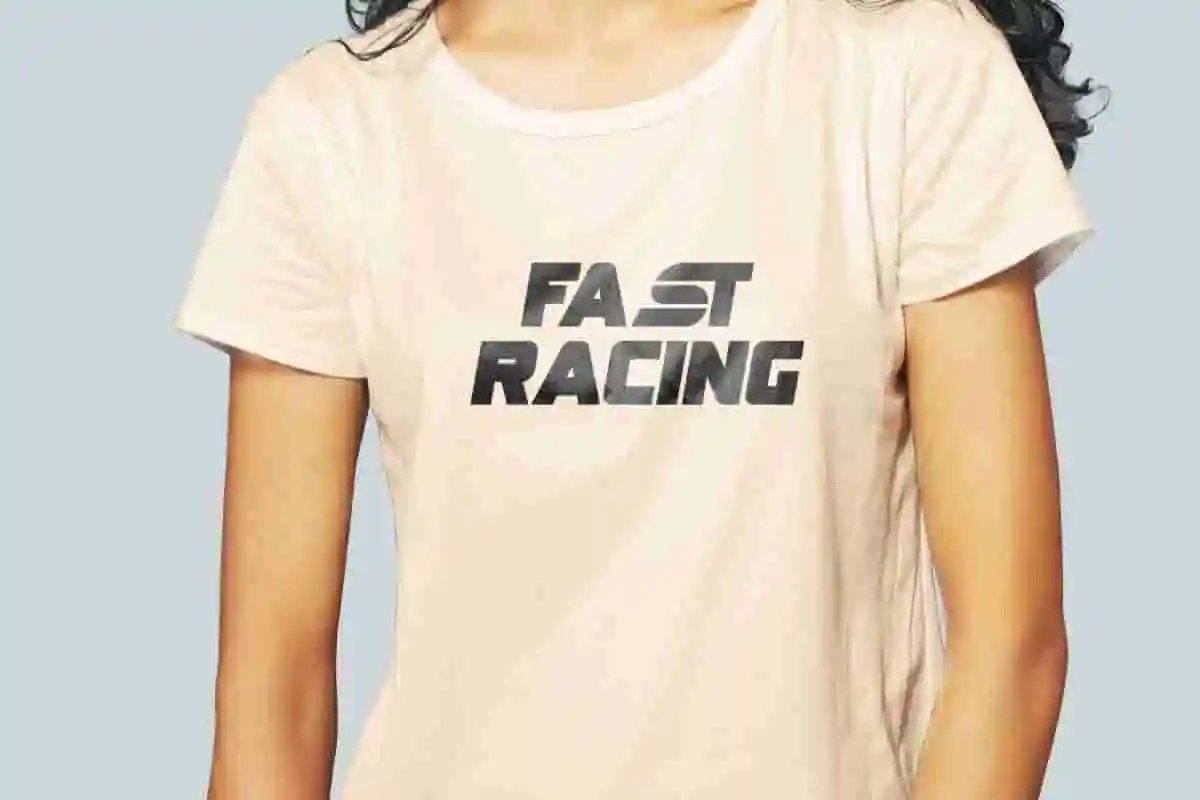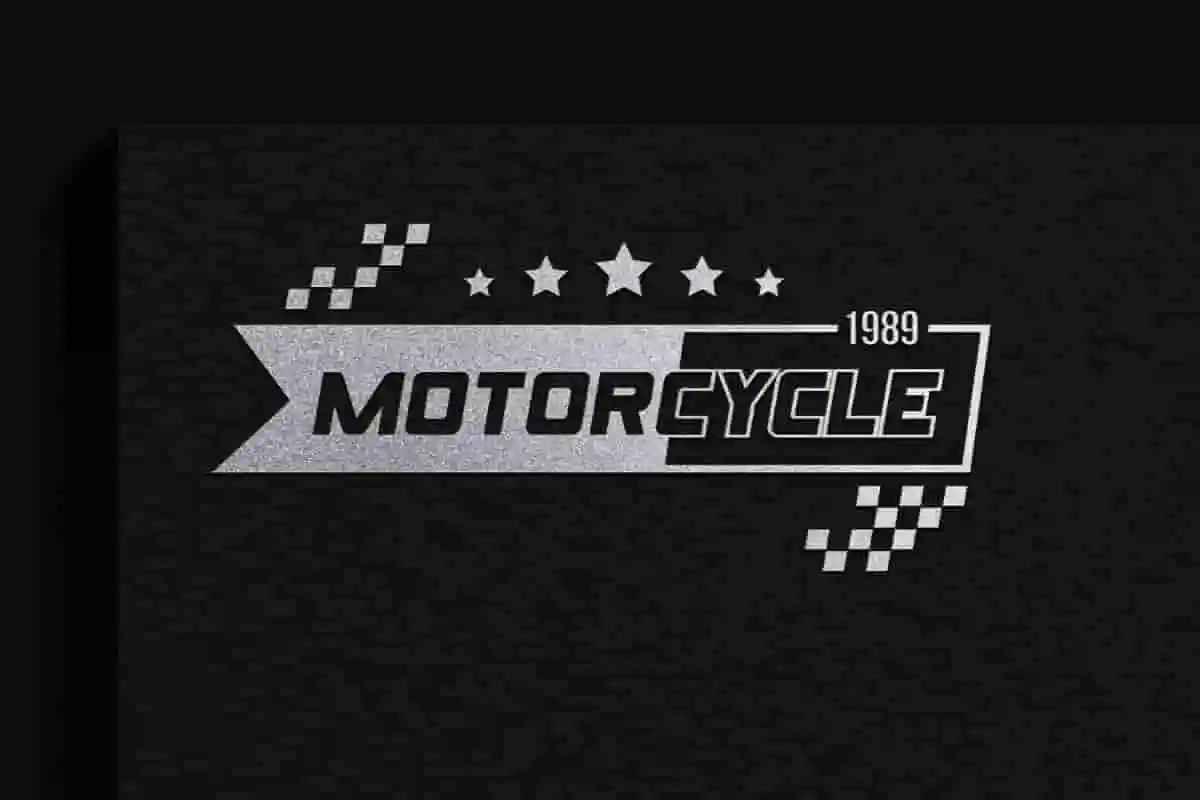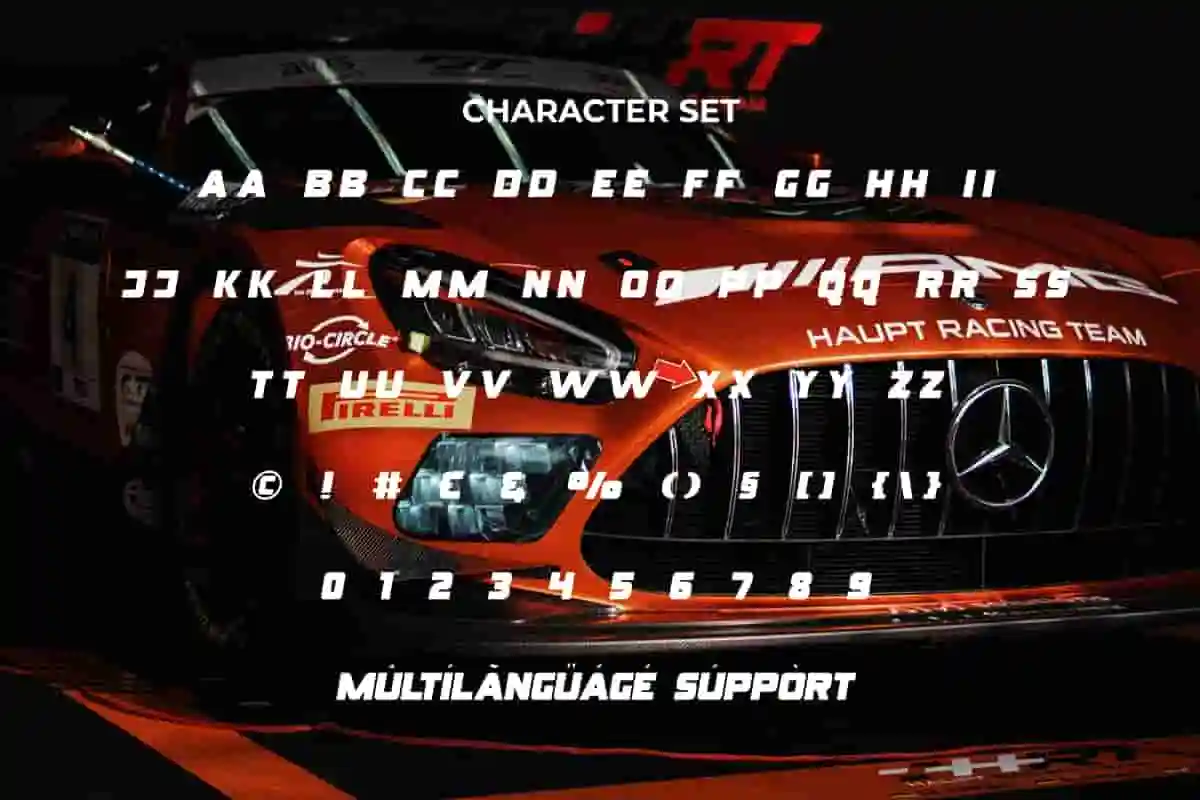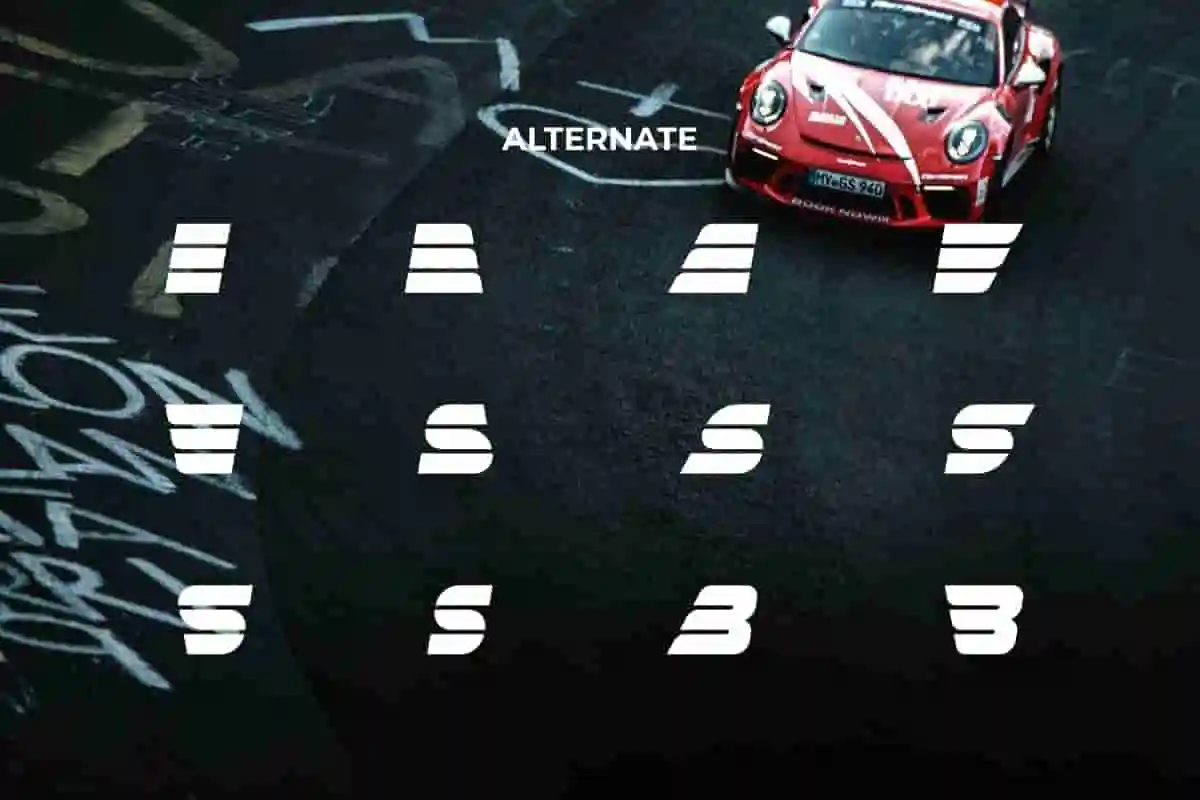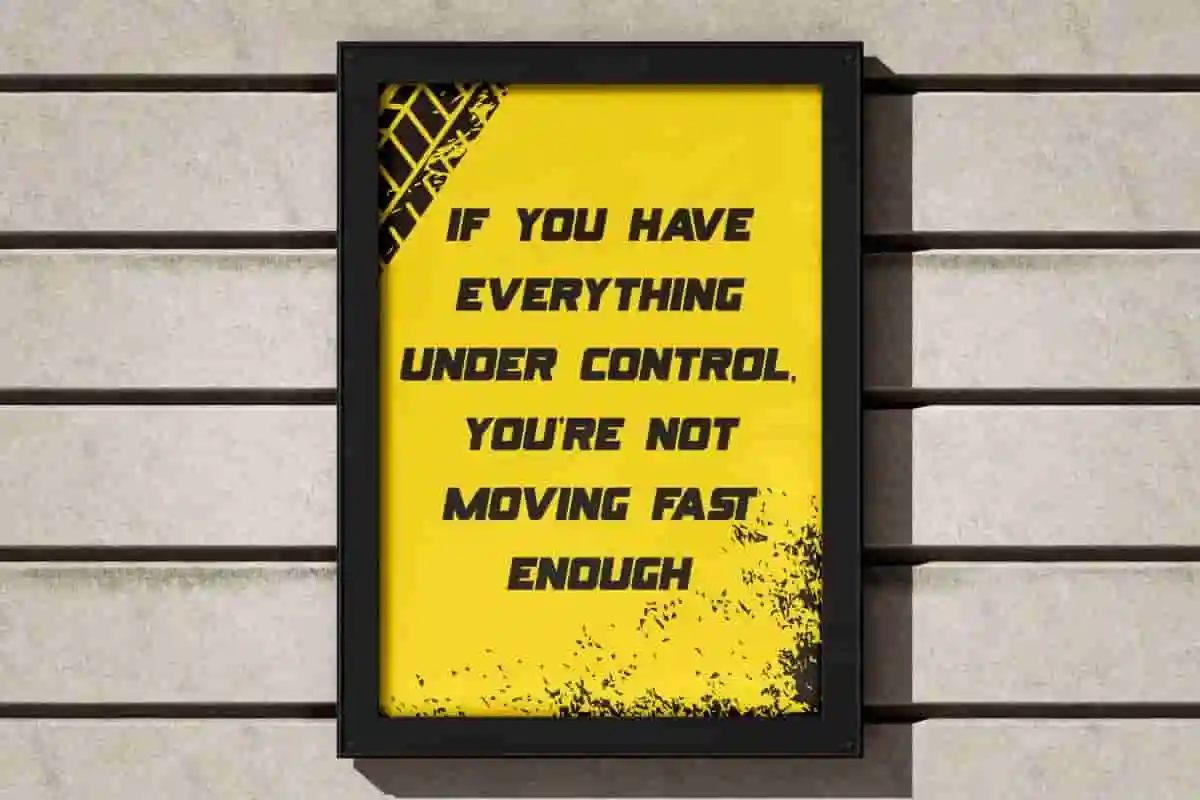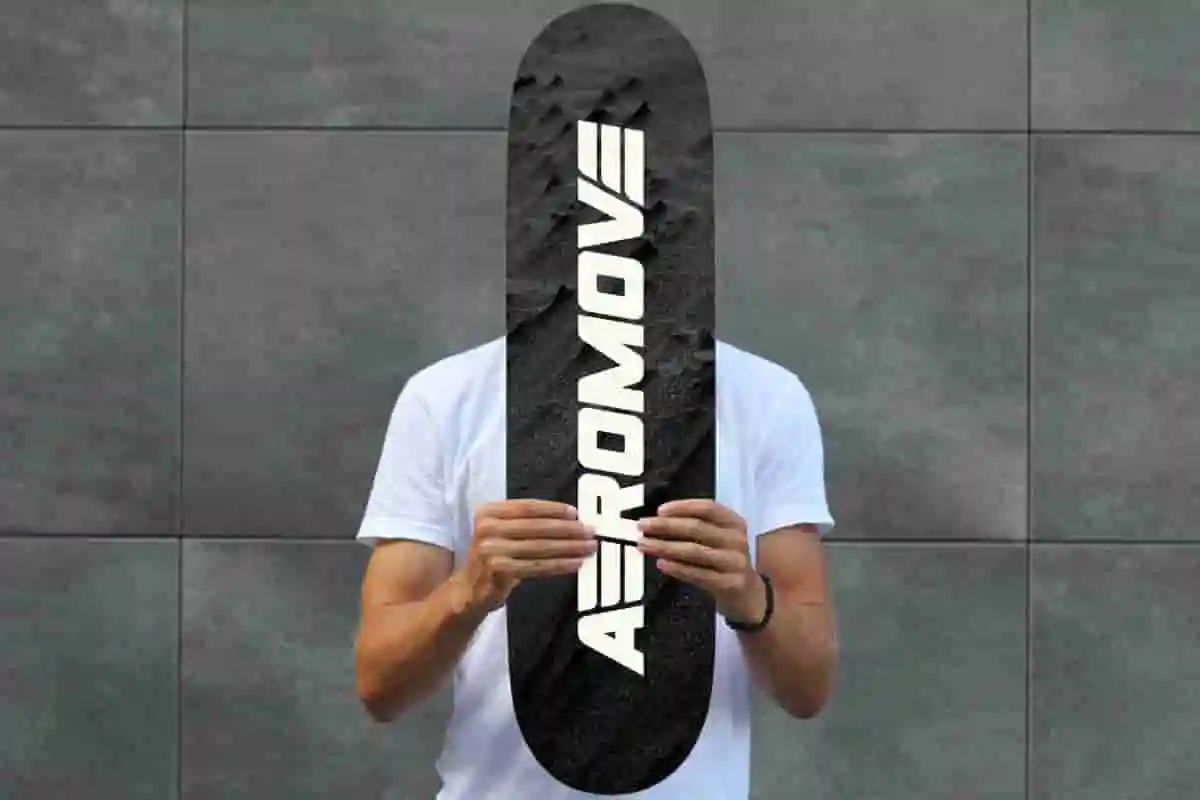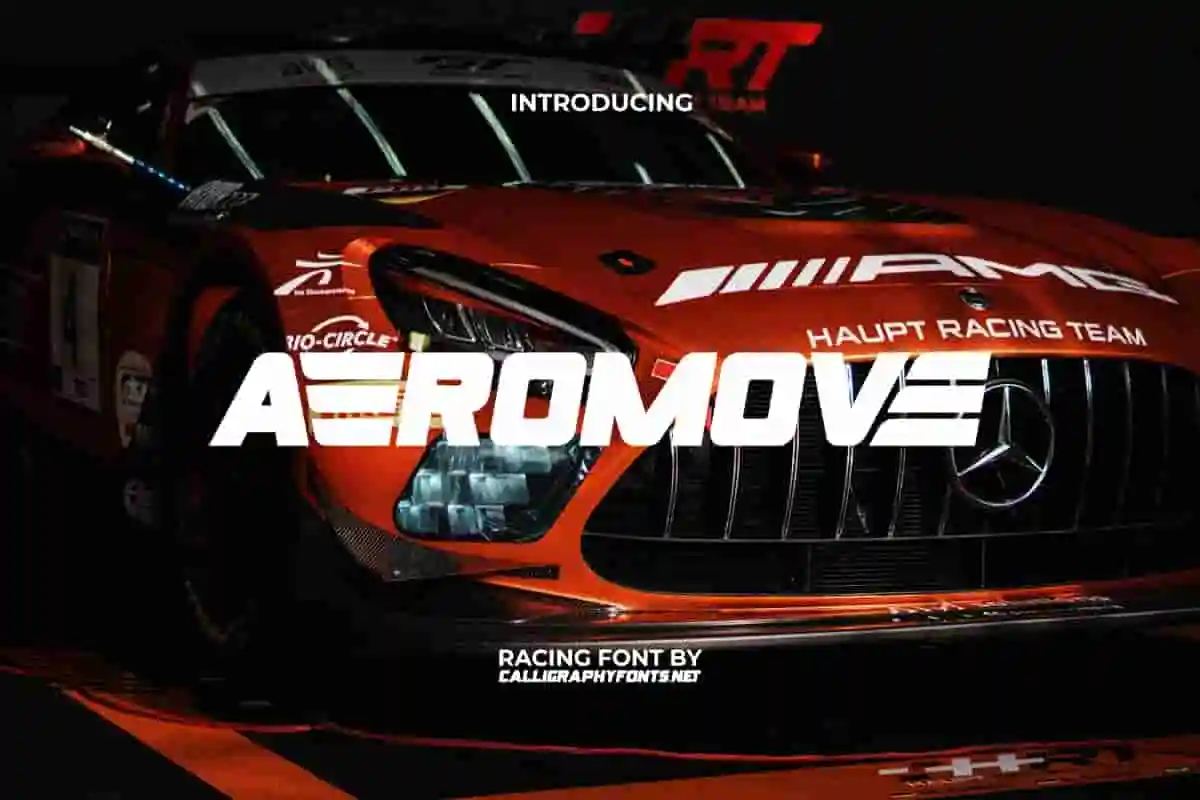
Aeromove Display Font
Aeromove Font is a racing font that symbolizes speed of movement inspired from aero and wings plane. It has a unique appeal but still easy to read visually.
Aeromove Font is a modern racing display font designed for strong and fast branding. Inspired from aero and wings plane, the font Bring a sense of speed of movement and action to your next project with the dynamics of this typeface’s specially designed directional winged slant. Ideal for apps, banner, billboard, brochure, covers, decals, logos, headlines, poster, print projects, sign, sticker, website, and more.
Say hello to Aeromove Display Font — a sleek, futuristic typeface designed to give your projects a modern edge. With its clean lines, geometric form, and high-impact style, Aeromove is built to make your designs stand out in a digital world. Perfect for tech branding, sports posters, digital ads, gaming graphics, and modern product packaging, Aeromove delivers confidence and clarity with every character.
Ready to supercharge your visuals with bold, futuristic flair? Introducing Aeromove Display Font — a dynamic and modern typeface designed for high-impact design. With sharp edges, clean geometry, and a tech-savvy attitude, Aeromove is perfect for branding, digital interfaces, esports graphics, posters, and high-tech product packaging. It speaks the language of innovation and speed.
Introducing Aeromove — a bold and modern display font built for futuristic brands, fast-moving visuals, and high-impact headlines. With sleek lines and powerful shapes, Aeromove Display Font is ideal for tech startups, sports branding, esports teams, digital posters, and cutting-edge packaging. Its unique style brings energy, movement, and precision to your designs.
- Bold and futuristic letterforms
- Perfect for headlines
Aeromove Font is an ideal choice for creating impressive visuals. Because it is creatively crafted that seamlessly combines modernity and functionality. It will attract attention in both print and digital designs. It will be perfect for accessories and merchandise, aviation, camper retail, clothing brand, game, graphic design, gym, menswear, motocross, motorsports, and much more.
Aeromove Font comes with a complete set of ALL CAPS for Uppercase and Lowercase, Number, a large range of Punctuation, Symbol and Alternate. It is supported with multilingual characters and ready to use both on Windows machine or Mac with simple installations. It’s tested to work well in the Adobe Apps (Illustrator, Adobe InDesign, Adobe Photoshop) CorelDraw, and others. PUA Encode Characters means you can access all the characters easily – Fully accessible without additional design software.